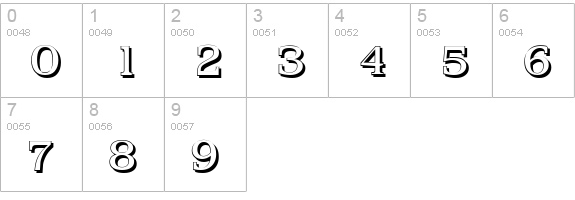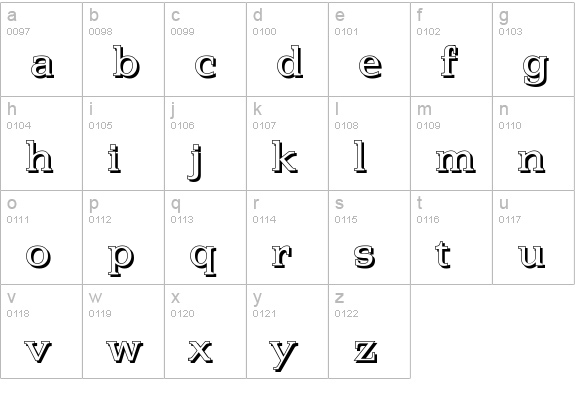
PenthouseShadow-Regular Font Details
PenthouseShadow-Regular is the standard, neutral variant in the PenthouseShadow typeface family \xE2\x80\x94 well suited to general body text, paragraphs, and standard typographic work.
PenthouseShadow-Regular font is a striking and sophisticated typeface that exudes elegance and luxury. With its unique shadowed effect, this font adds a touch of drama and style to any design project. Perfect for headlines, titles, and branding materials, PenthouseShadow-Regular will make your text stand out and leave a lasting impression. The best part? PenthouseShadow-Regular is available for free download at FontsMarket.com. That's right, you can elevate your designs with this premium font without spending a dime. Whether you're working on a fashion magazine, upscale event invitations, or high-end branding, PenthouseShadow-Regular is the perfect choice to add a touch of glamour and sophistication. Download it now and let your creativity shine with this stunning font.